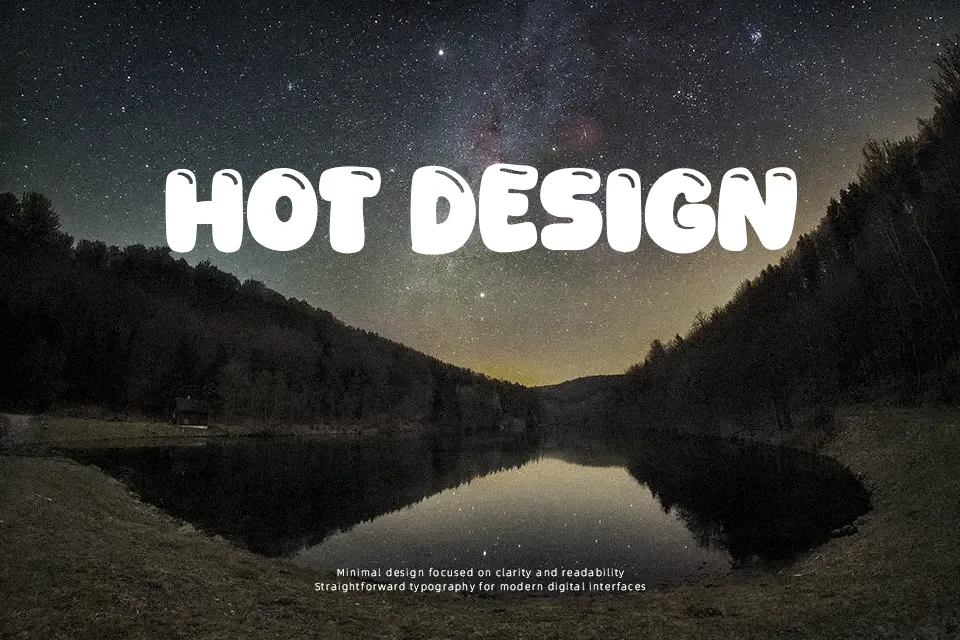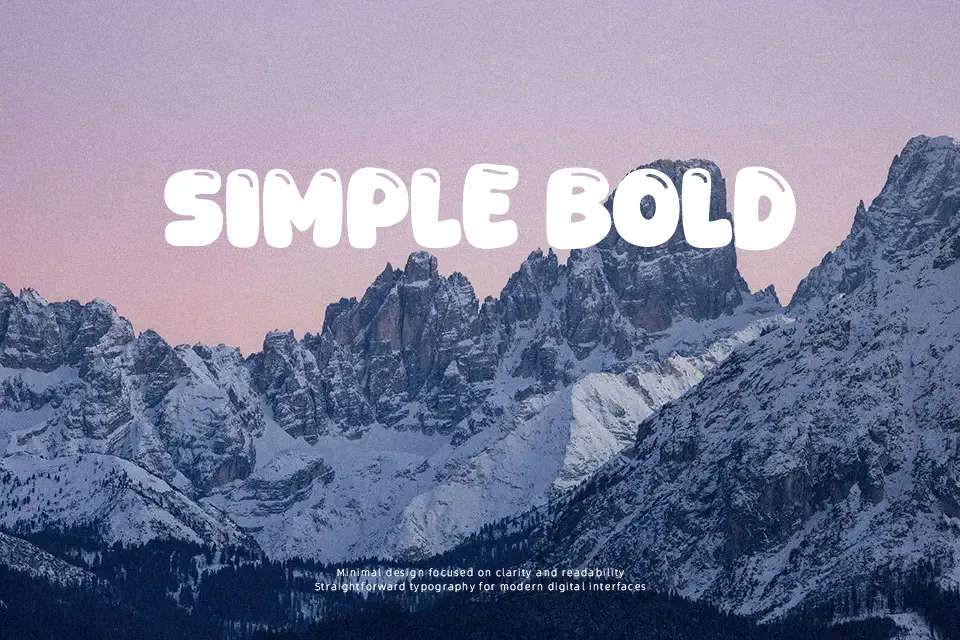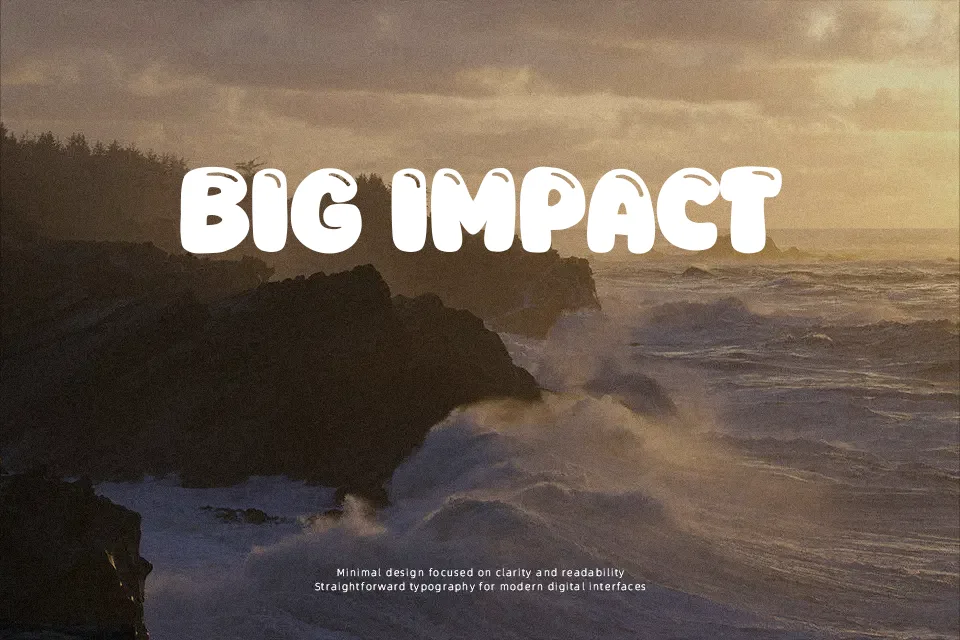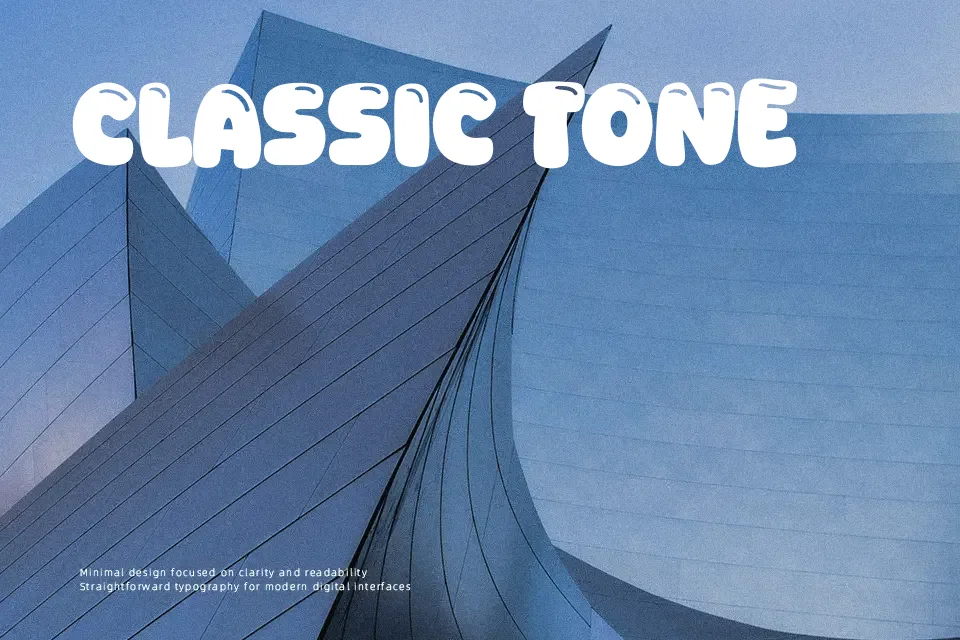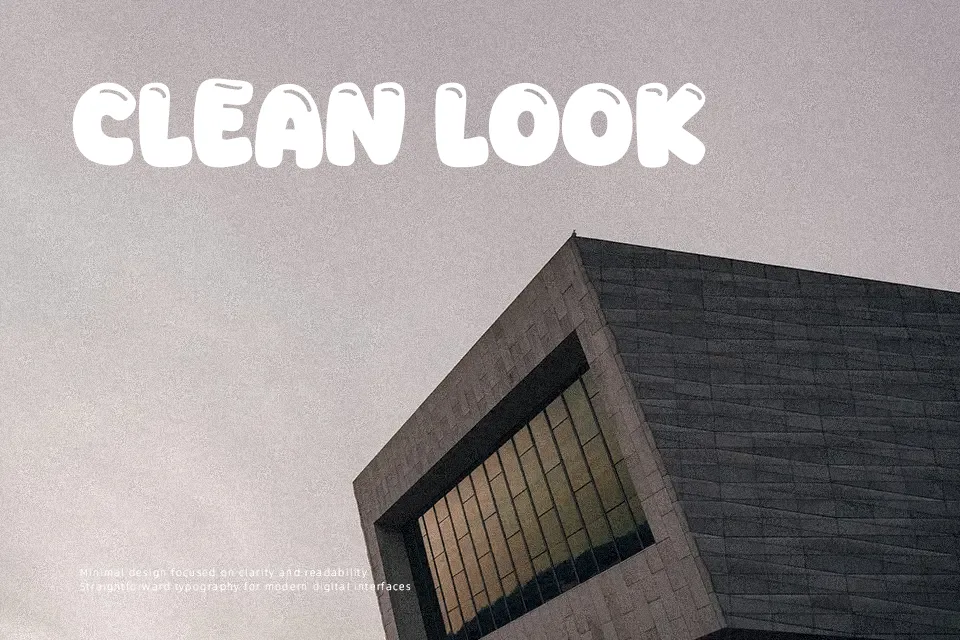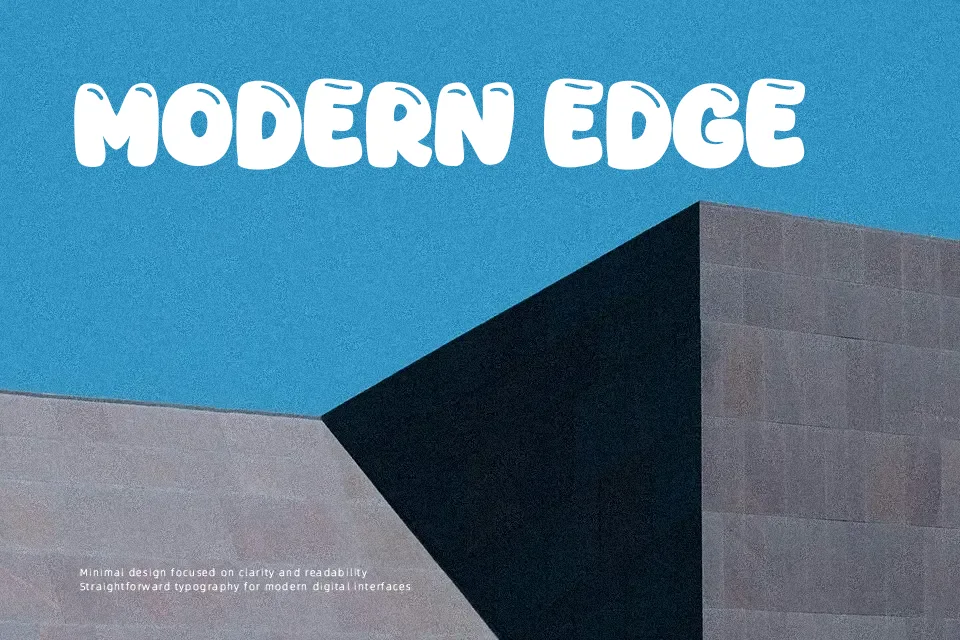
Spicy Sale Font
Designed by Khurasan
Spicy Sale Font is a playful display typeface characterized by extra-thick strokes, rounded outer contours, and minimal internal counter spaces. The letterforms maintain uniform stroke weights with soft terminals, creating a distinct bouncy visual rhythm across capitalized headlines. Tight character spacing keeps words cohesive, though the dense shapes become difficult to distinguish when scaled down to body text sizes. In large display applications like food truck menus, toy branding, and promotional sale posters, the bold structure ensures immediate readability from a distance. However, prolonged reading comfort drops significantly in multi-line paragraphs, making the design best suited strictly for short, punchy statements.
Best For: promotional sale banners, food packaging graphics, cartoon video thumbnails, children’s event posters
Not Ideal For: long body text, technical documentation, dense editorial layouts, small mobile captions
Perfect for advertising, headline, and kids, with a bold and cartoon style.